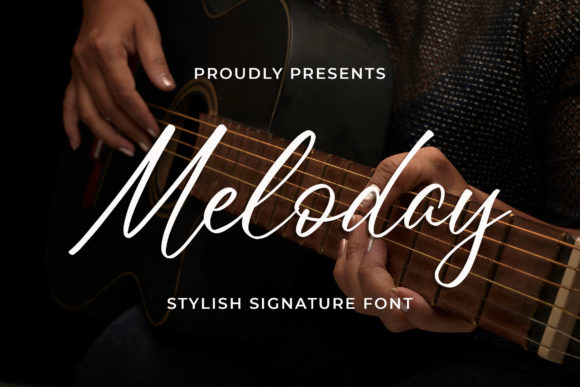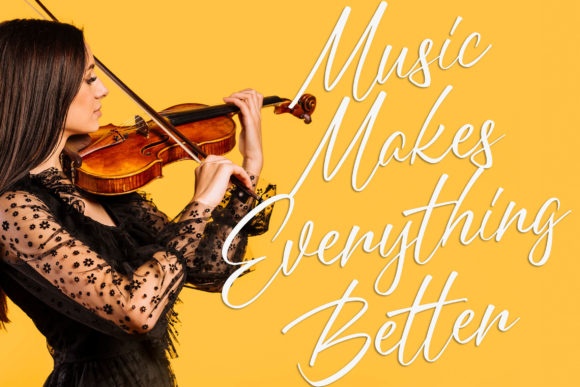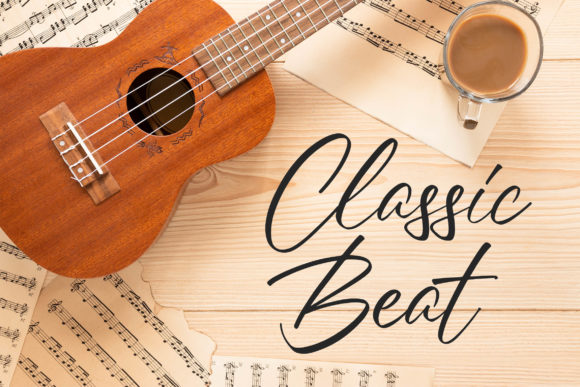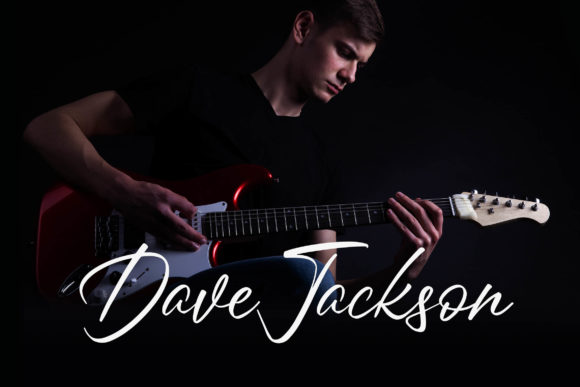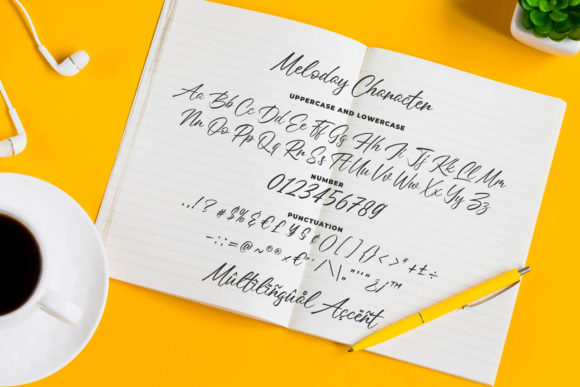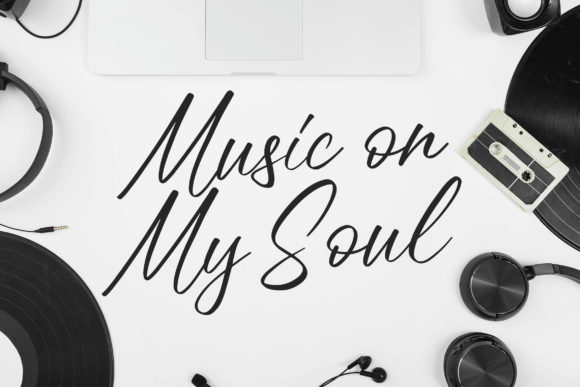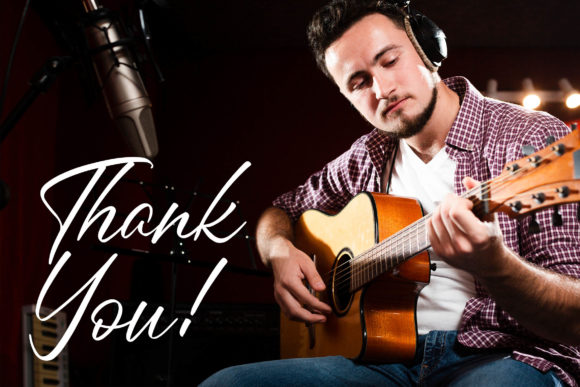
Meloday Font
About Meloday Font
Meloday is charming and elegant, but also authentic. This versatile handwritten font has a wide range of applications ranging from branding to greeting cards and is guaranteed to add a sophisticated touch to your next design.